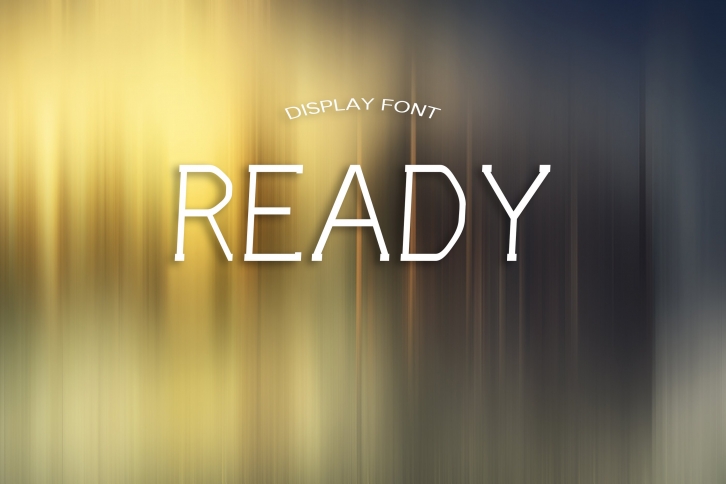
It's a modern, all caps display font. Specifically developed for contemporary design styles and applications. It's perfect for you to give your design an elegant modern style. The font came with web font licenses & unlimited page views!
Although it can be used at smaller sizes, it has been designed primarily for use at larger scales. Perfect for branding projects, striking posters and as a unique display font for web or app development.